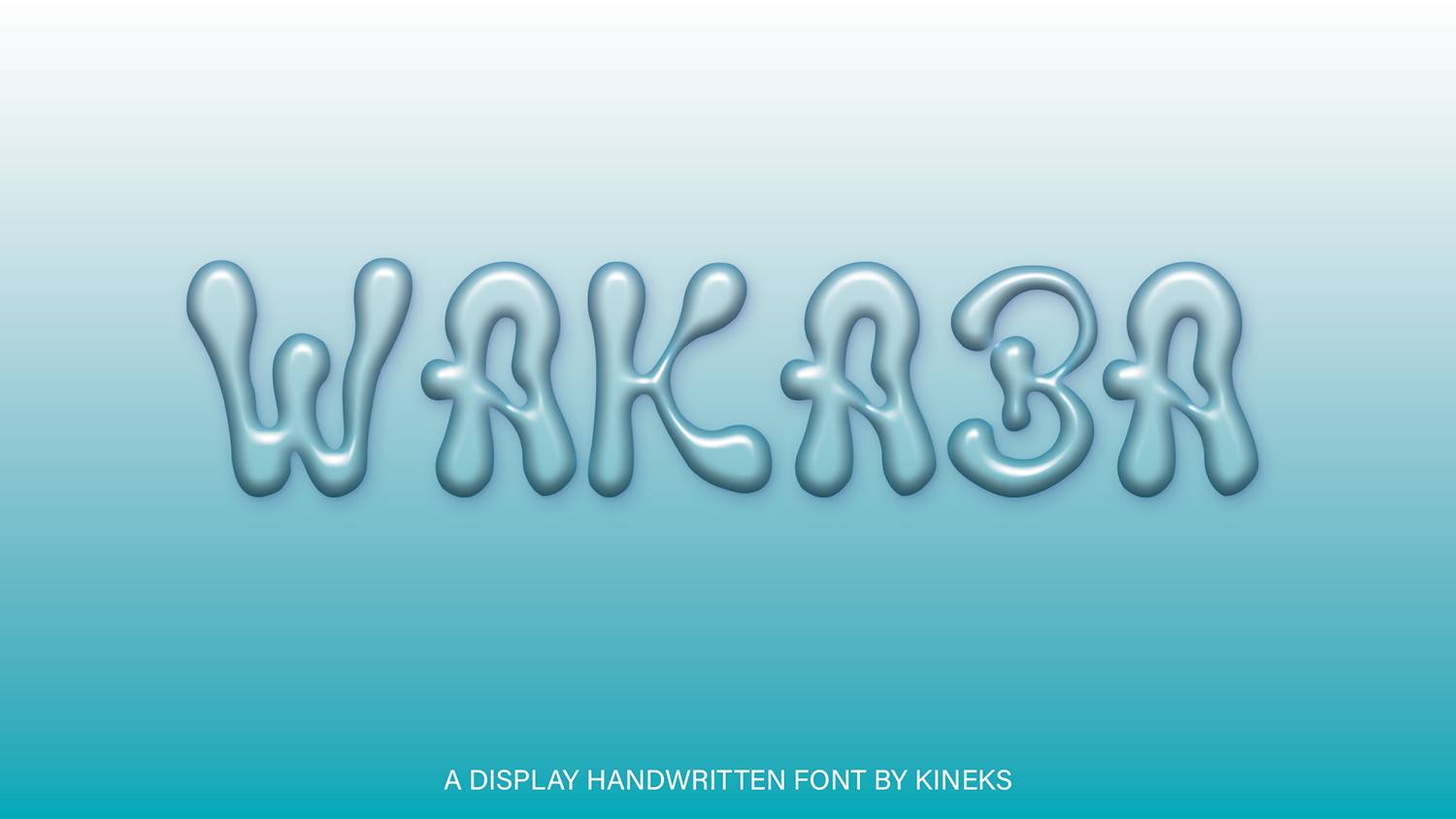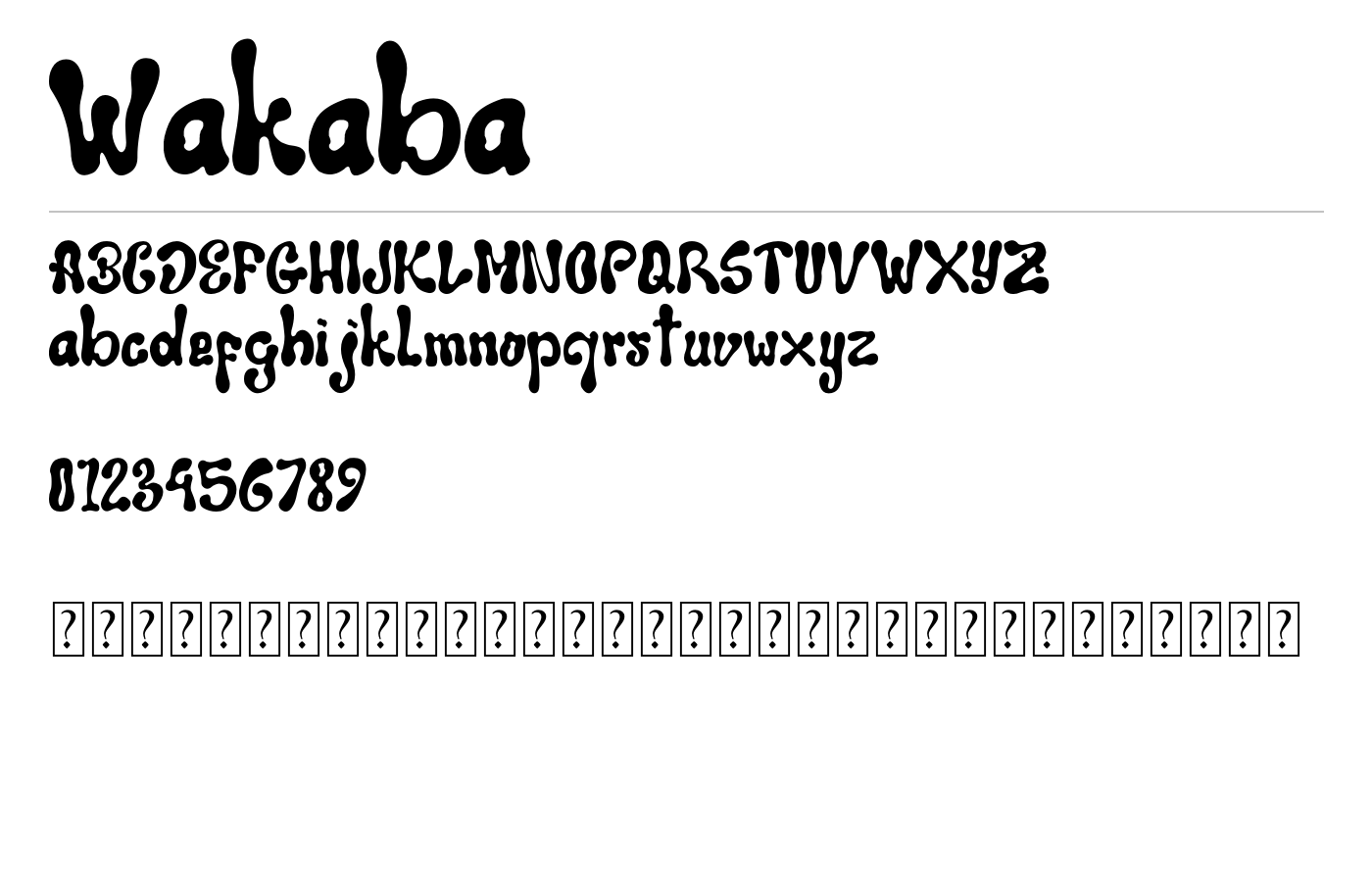
Wakaba Display is a playful, bold display font with a unique, bubbly style that captures a whimsical and fun personality. Its irregular, organic shapes combined with medium stroke contrast give it a hand-crafted feel perfect for eye-catching headlines, logos, and creative branding that seeks a lively and approachable vibe. This font works best in informal, artistic, or youthful designs where a touch of eccentric charm is desired.
Wakaba Display Font
About Wakaba Display Font
| Font family | Wakaba Display Font |
| Designer | Dede Kurniawan |